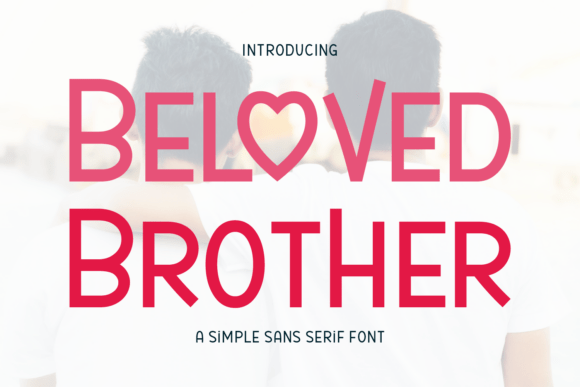
Beloved Brother Font: A Playful and Loving Sans Serif Font for Maximum Readability
The Beloved Brother font is a modern sans serif font that has gained popularity for its clean and charming design. It is a playful and loving font that is perfect for a variety of design purposes, including template design, magazine fonts, advertising branding, headlines, logos, invitations, elegant crafting, beauty design, and more.
Key Features of Beloved Brother Font
- Clean and Charming Design: The Beloved Brother font boasts a clean and charming design that makes it perfect for a wide range of design applications.
- Playful and Loving: The font’s playful and loving aesthetic makes it ideal for designs that require a friendly and approachable tone.
- Maximum Readability and Legibility: The font is designed for maximum readability and legibility, making it perfect for body text and headlines.
- Sans Serif Font: The Beloved Brother font is a sans serif font, which means it doesn’t have serifs or small lines at the end of the letters.
Design Applications of Beloved Brother Font
The Beloved Brother font is a versatile font that can be used for a wide range of design applications. Here are some of the most popular uses of the font:
- Template Design: The font is perfect for designing templates for presentations, reports, and other documents.
- Magazine Fonts: The font’s clean and charming design makes it ideal for use in magazine fonts.
- Advertising Branding: The font’s playful and loving aesthetic makes it perfect for advertising branding and marketing materials.
- Headlines: The font is designed for maximum readability and legibility, making it perfect for headlines and titles.
- Logos: The font’s unique and charming design makes it ideal for use in logos and branding materials.
- Invitations: The font’s elegant and playful design makes it perfect for use in invitations and other formal documents.
- Elegant Crafting: The font’s charming and playful aesthetic makes it ideal for use in elegant crafting and DIY projects.
- Beauty Design: The font’s clean and charming design makes it perfect for use in beauty design and cosmetics branding.
Typography Tips for Using Beloved Brother Font
Here are some typography tips to keep in mind when using the Beloved Brother font:
- Use a clear and concise font size: The Beloved Brother font is designed to be clear and readable, so make sure to use a font size that is easy to read.
- Choose a suitable line height: The font’s line height should be adjusted to ensure that the text is easy to read and understand.
- Use font colors wisely: The font color should be chosen carefully to ensure that it contrasts with the background and is easy to read.
- Experiment with font combinations: The Beloved Brother font can be paired with other fonts to create a unique and visually appealing typography.
Font Pairing Suggestions for Beloved Brother Font
The Beloved Brother font can be paired with other fonts to create a unique and visually appealing typography. Here are some font pairing suggestions:
- Open Sans: The Open Sans font is a clean and modern sans serif font that pairs well with the Beloved Brother font.
- Lato: The Lato font is a clean and elegant sans serif font that pairs well with the Beloved Brother font.
- Merriweather: The Merriweather font is a classic serif font that pairs well with the Beloved Brother font.
The Beloved Brother font is a playful and loving sans serif font that is perfect for a wide range of design applications. Its clean and charming design makes it ideal for use in template design, magazine fonts, advertising branding, headlines, logos, invitations, elegant crafting, beauty design, and more.